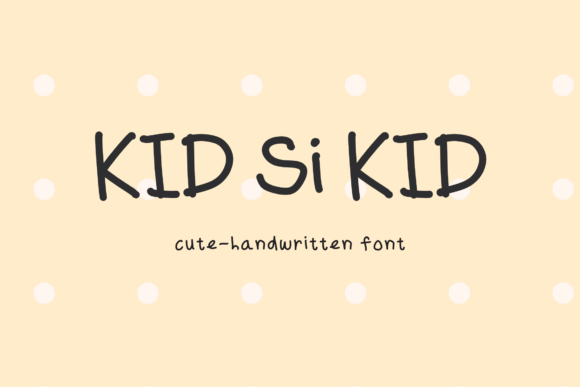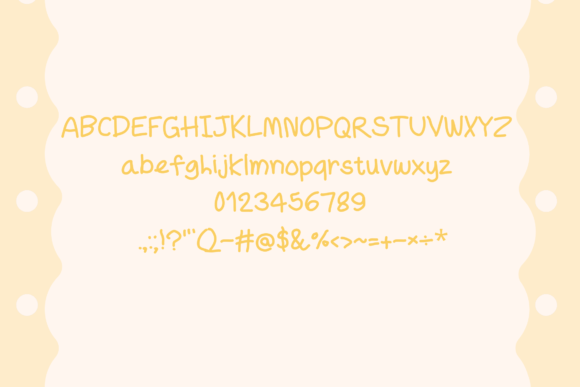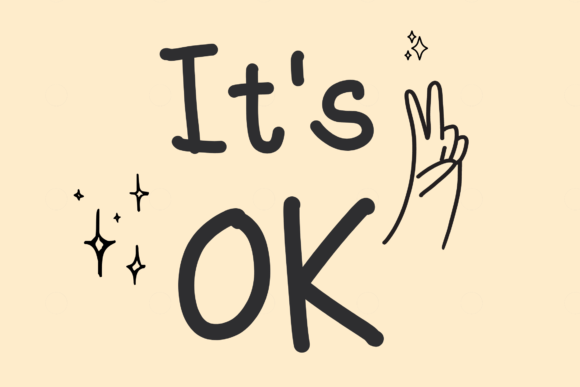
The Joy of Kid Si Kid Font
Have you ever sat down with a blank page, a pen in hand, and a spark of creativity that refuses to be contained? That’s exactly where the magic of design begins. For many of us, it’s in these moments of unbridled imagination that we discover the true potential of our craft. And for designers looking to tap into that same sense of wonder, Kid Si Kid Font is the perfect tool to bring their ideas to life.
Kid Si Kid Font is a charming handwritten font that’s specifically designed to evoke a sense of childlike playfulness and whimsy. With its unique letterforms and endearing imperfections, this font is a designer’s dream come true for creating memorable and engaging projects. Whether you’re working on a children’s book, a greeting card, or a playful brand identity, Kid Si Kid Font adds a touch of innocence and charm that’s sure to captivate your audience.
Kid Si Kid Font Key Features
- Font Family: Kid Si Kid is a sans-serif font family designed for digital use.
- Font Size: Kid Si Kid is available in a range of font sizes, from 12 to 72 points.
- Unique Characteristics: Kid Si Kid features a bold and playful design, with rounded edges and a friendly feel.
- Character Count: Includes a wide range of characters, including Latin, Cyrillic, and Greek alphabets, as well as punctuation and symbols.
Design Review: Kid Si Kid Font
Overall, I found the Kid Si Kid font to be a fun and playful addition to any design project. The ✨ bold and whimsical lines immediately caught my attention, and I can see this font being used effectively in children’s book illustrations, cartoons, or even modern packaging designs.
- ✨ The unique and imaginative style of the font makes it stand out in a crowded design space.
- ✨ The font is highly versatile and can be used in a variety of contexts, from formal to informal designs.
- ✨ The font’s bold lines and playful curves make it easy to read and understand, even at smaller font sizes.
- ⚠️ The font may be too playful for more formal or professional designs, where a more subdued tone is required.
- ⚠️ The font’s bold lines may be overwhelming if used in large quantities or as the primary font for a design project.
- ⚠️ The font may not be suitable for designs that require a more serious or mature tone.
Overall, I think the Kid Si Kid font is a great addition to any designer’s toolkit, but it’s essential to use it thoughtfully and consider the context in which it will be used. With a little creativity and restraint, this font can add a fun and playful touch to even the most mundane designs.
Getting the Most Out of Kid Si Kid Font
For the best results, use Kid Si Kid Font in bold or italic styles to add emphasis and visual interest to your designs.
Pair the font with bright, bold colors to create a playful and eye-catching visual effect.
Experiment with different font sizes and arrangements to create a unique and creative layout.
Kid Si Kid Font is ideal for:
Children’s books and educational materials.
Playful marketing campaigns and promotional materials.
Fun and creative social media graphics.
Alternatives to Kid Si Kid Font
The Great Vibes Font is a beautiful, handwritten script font. It is ideal for creating a friendly and approachable atmosphere in designs, making it perfect for social media graphics, advertisements, and packaging. The Great Vibes Font has a similar playful feel to Kid Si Kid Font, but it’s more elegant and sophisticated.
Carolyna Pro Font is a modern, elegant script font. It’s perfect for high-end designs, luxury brands, and formal invitations. Compared to Kid Si Kid Font, Carolyna Pro Font is more refined and sophisticated, making it suitable for corporate and upscale designs.
Playfair Display Font is an elegant, high-end serif font. It’s ideal for creating a luxurious and sophisticated atmosphere in designs. While it’s more formal than Kid Si Kid Font, it shares a similar sense of sophistication and can be used in similar contexts.
Q: Does Kid Si Kid include any special features or glyphs?
Kid Si Kid includes a range of special features, including ligatures, swashes, and alternates. These can be accessed through the font’s built-in features or by using font editing software like FontLab or Glyphs. This allows designers to add an extra layer of creativity and customization to their work.